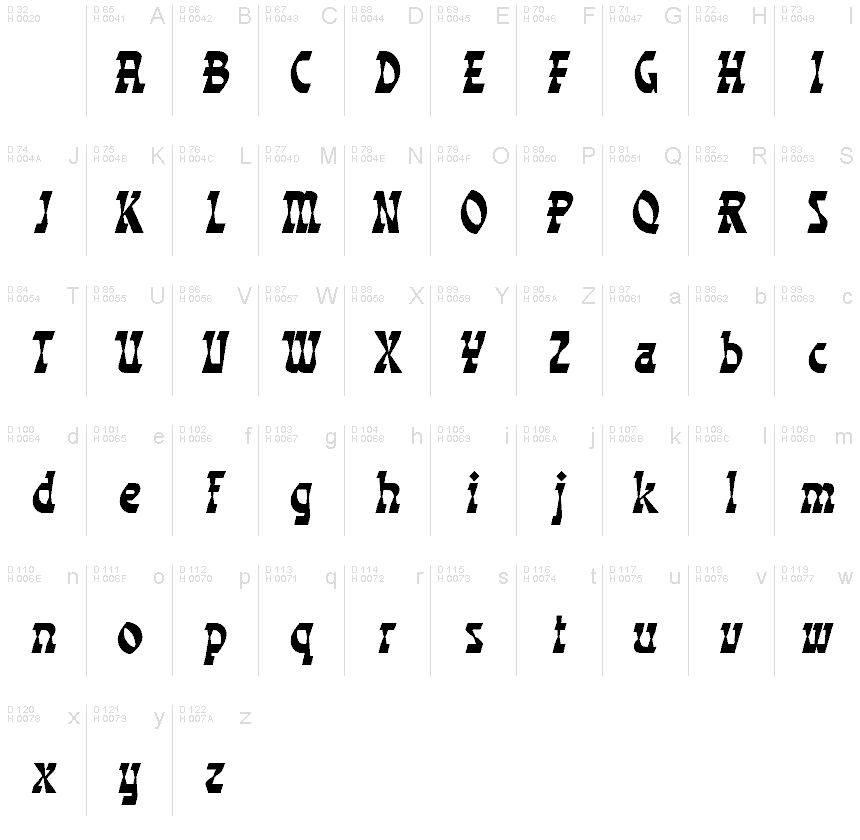
CS Desmon Regular Demo
CS Desmon font by Craft Supply Co. marries the charms of yesteryears with a bold presence in each character. This condensed font is inspired by both retro elements and geometric influences, combining the two in a unique blueprint that results in high contrast forms. The final look is one that has striking symmetry and harmony without disturbing its exciting natural flow.
CS Desmon works perfectly for many projects including posters, magazines, logos, branding design, social media content, package design, apparel design, website headlines or titles, invitations cards such as wedding or event ones among many others.